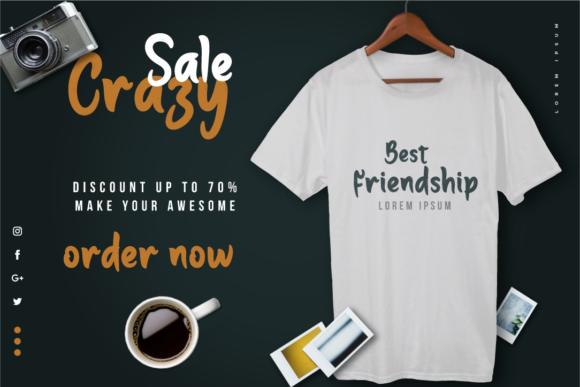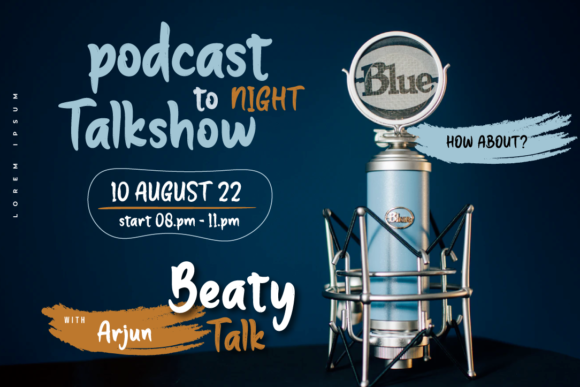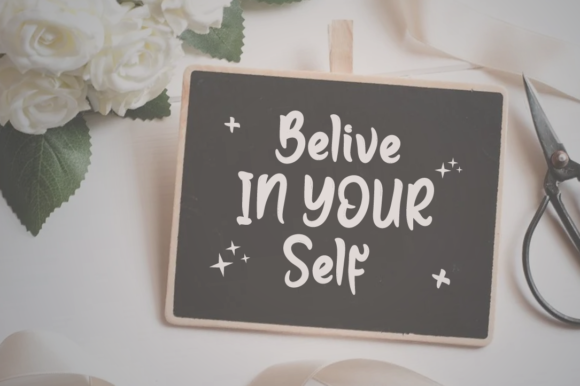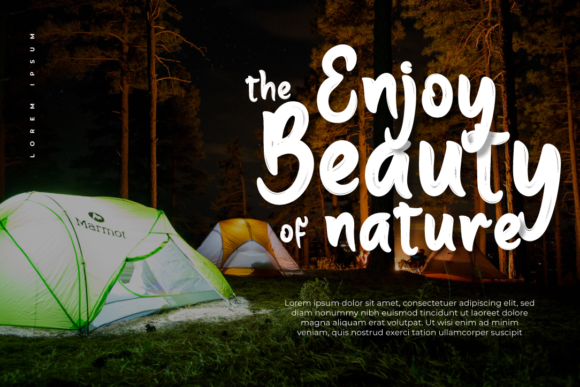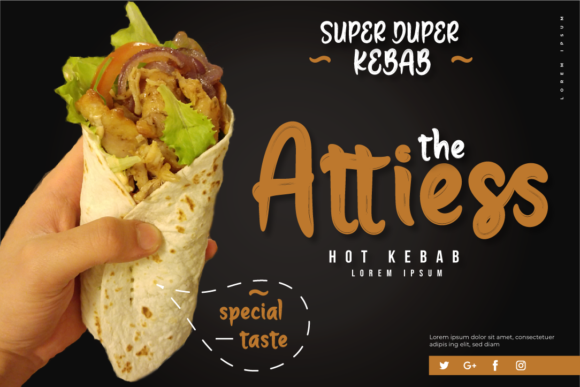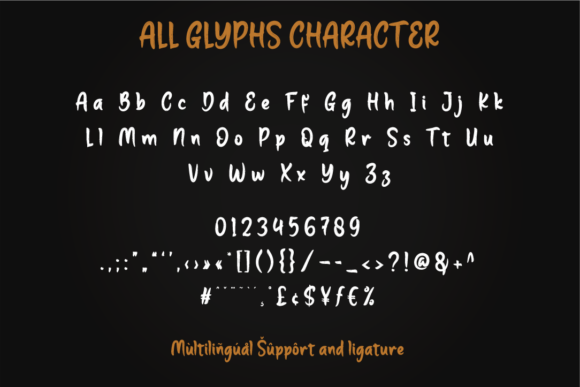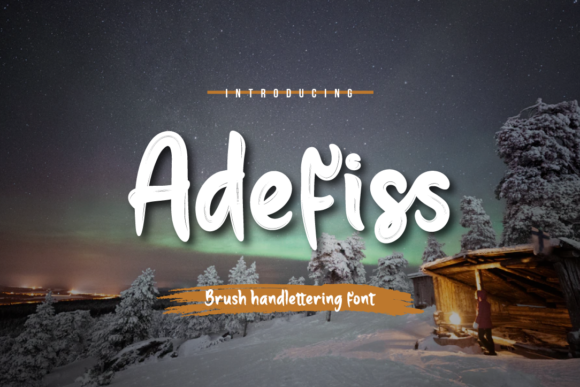
Adefiss Font: The Ultimate Brush Handwritten Font for Designers and Crafters
Are you a designer or crafter looking for a unique and creative font to elevate your designs? Look no further than Adefiss Font, a beautiful brush handwritten font that is perfect for making original and outstanding designs. In this article, we’ll explore the features and benefits of Adefiss Font, and how it can be used to take your designs to the next level.
What is Adefiss Font?
Adefiss Font is a brush handwritten font that is designed to mimic the look and feel of hand-painted brushstrokes. With its unique and expressive letterforms, Adefiss Font is perfect for adding a personal touch to your designs. Whether you’re creating branding materials, advertising campaigns, or simply looking for a font to use in your craft projects, Adefiss Font is a versatile and creative choice.
Features of Adefiss Font
Adefiss Font has a number of features that make it an ideal choice for designers and crafters. Some of its key features include:
- Unique and expressive letterforms: Adefiss Font has a distinctive and hand-crafted feel, with each letterform carefully designed to be both beautiful and legible.
- Brush handwritten style: The font’s brush handwritten style gives it a personal and artistic feel, perfect for adding a touch of personality to your designs.
- High-quality design: Adefiss Font is designed to be clear and legible, even at small sizes, making it perfect for use in a wide range of design applications.
- Versatile and flexible: Adefiss Font can be used in a wide range of design applications, from branding and advertising to crafting and DIY projects.
Uses for Adefiss Font
Adefiss Font is a versatile font that can be used in a wide range of design applications. Some of the many uses for Adefiss Font include:
- Branding and advertising: Adefiss Font is perfect for creating eye-catching branding materials, such as logos, business cards, and brochures.
- Posters and banners: The font’s large and expressive letterforms make it perfect for use in posters and banners.
- Packaging and labels: Adefiss Font can be used to add a personal touch to packaging and labels, making your products stand out on store shelves.
- Podcasts and videos: The font’s unique and expressive letterforms make it perfect for use in podcast and video titles, intros, and outros.
- Outdoor activities and apparel: Adefiss Font is a great choice for designing outdoor gear, such as t-shirts, hats, and water bottles.
- Quotes and inspirational messages: The font’s beautiful and expressive letterforms make it perfect for creating inspiring and motivational quotes.
- Beverages and food packaging: Adefiss Font can be used to add a personal touch to beverage and food packaging, making your products stand out in a crowded market.
Why Choose Adefiss Font?
So why choose Adefiss Font for your design projects? Here are just a few reasons:
- Unique and creative: Adefiss Font is a one-of-a-kind font that will help your designs stand out from the crowd.
- High-quality design: The font is designed to be clear and legible, even at small sizes, making it perfect for use in a wide range of design applications.
- Versatile and flexible: Adefiss Font can be used in a wide range of design applications, from branding and advertising to crafting and DIY projects.
- Easily readable: The font is designed to be easily readable, making it perfect for use in body text and captions.
| Font Name | Adefiss Font |
| Author | Productype |
In conclusion, Adefiss Font is a beautiful and versatile brush handwritten font that is perfect for designers and crafters looking to add a personal touch to their designs. With its unique and expressive letterforms, high-quality design, and versatility, Adefiss Font is an ideal choice for a wide range of design applications. Whether you’re creating branding materials, advertising campaigns, or simply looking for a font to use in your craft projects, Adefiss Font is a great choice.